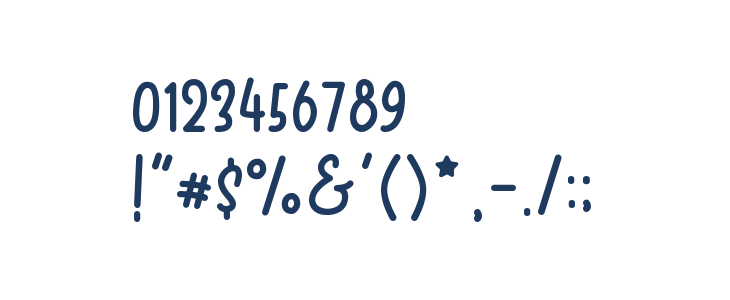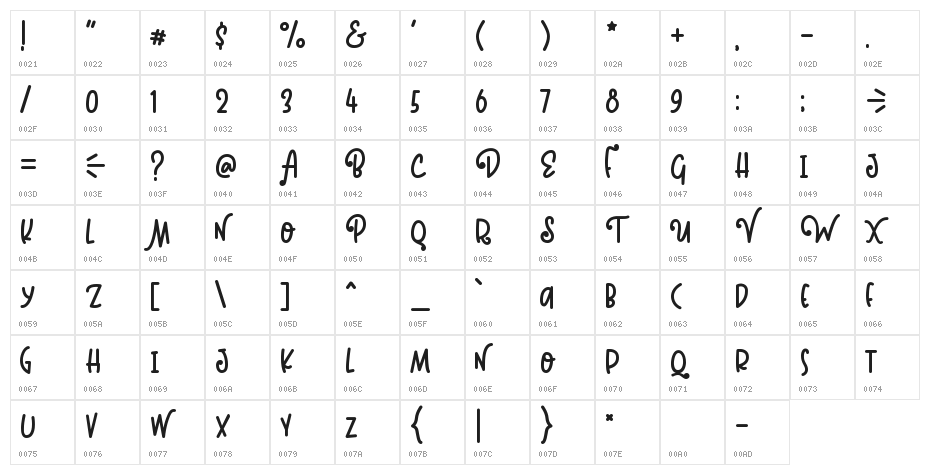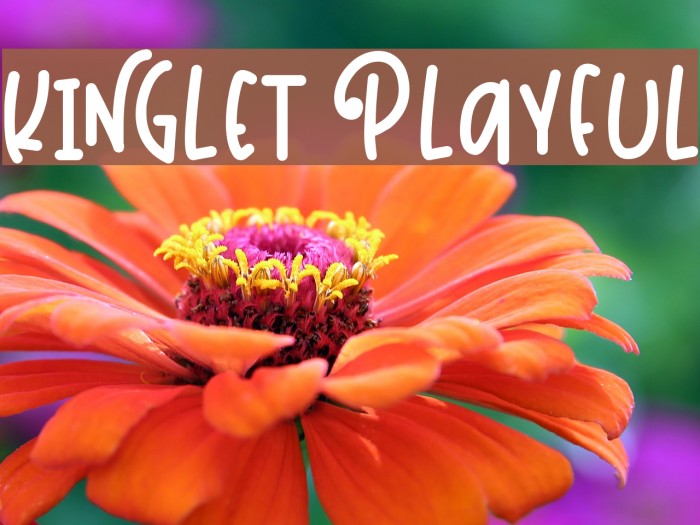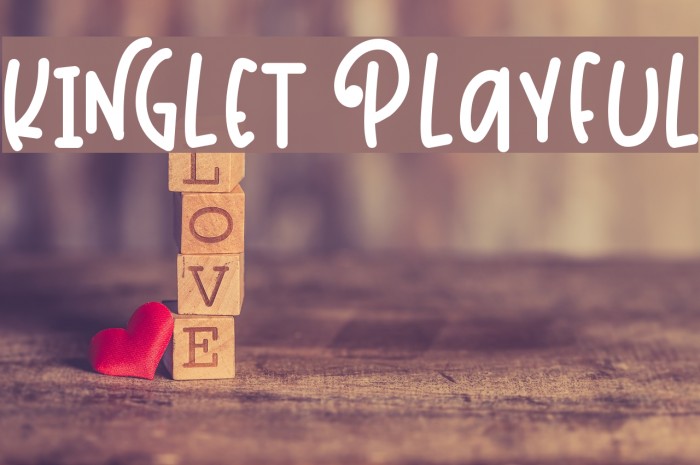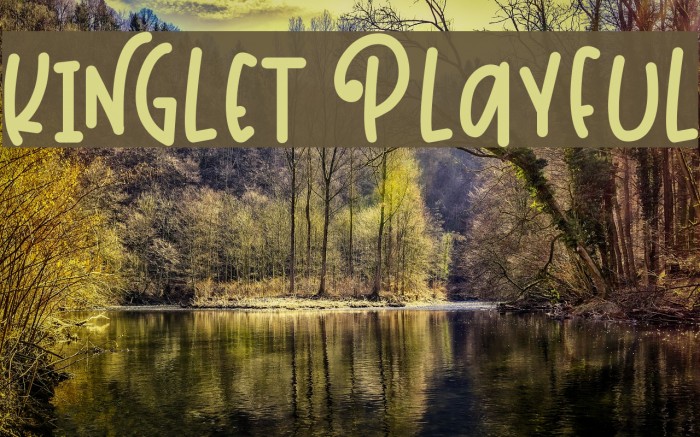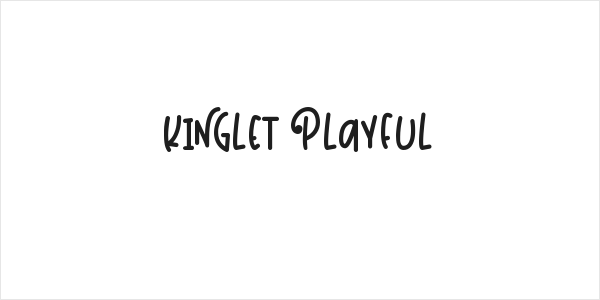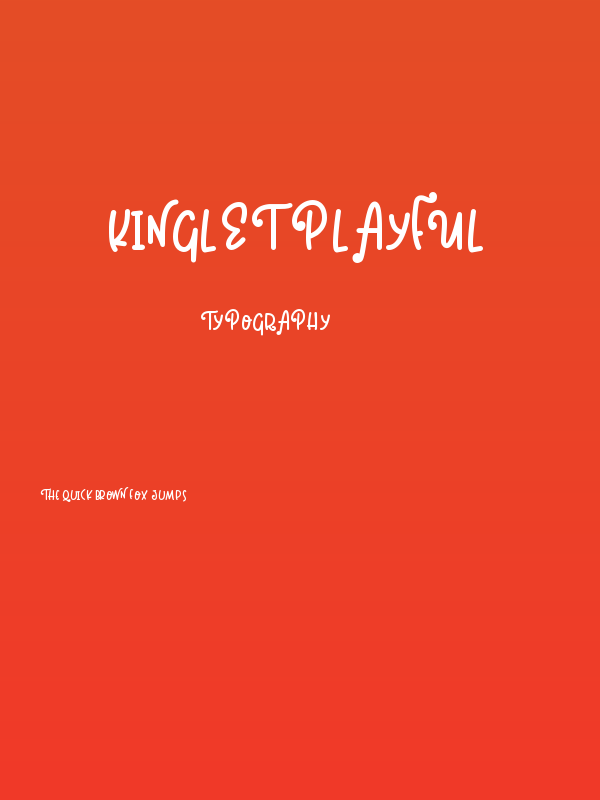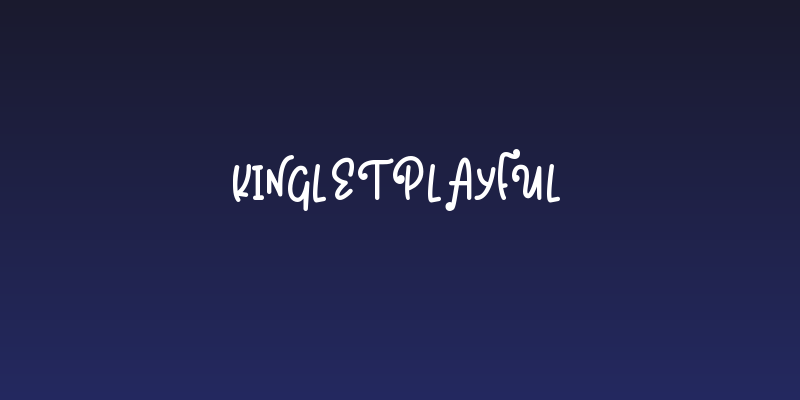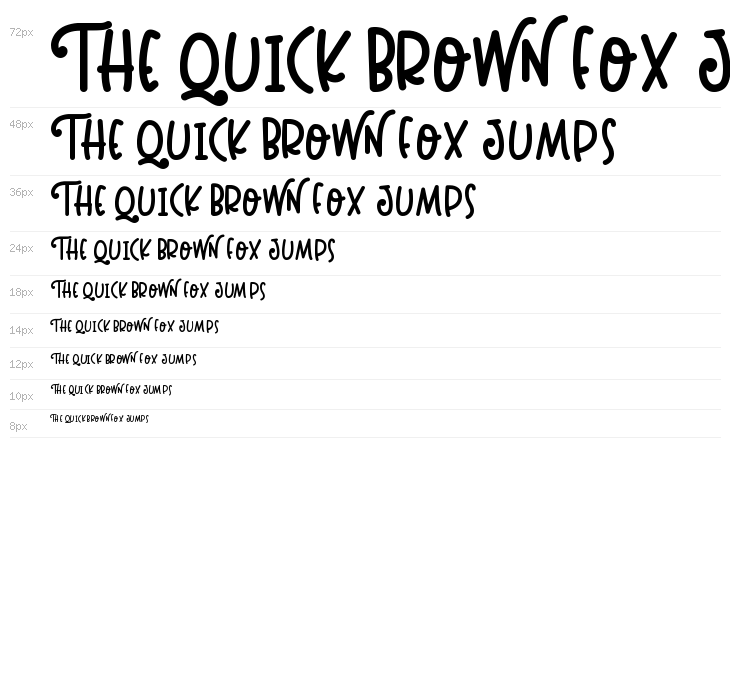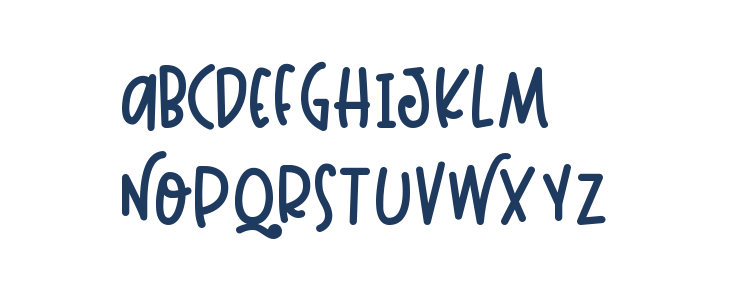
Kinglet Playful Font
Kinglet Playful Description
This font exudes a playful and whimsical charm, characterized by its bold, rounded letterforms and distinctive curls. The uppercase and lowercase letters maintain a consistent style, with a lively and energetic appearance. The numbers and special characters follow suit, adding to the font's cohesive and spirited design. Its bold strokes and rounded edges make it highly legible while retaining a fun and informal vibe. The font's unique personality makes it ideal for projects that require a touch of creativity and joy.
Overall StylePlayful
Proposed ProjectsPerfect for children's books, playful branding, party invitations, and creative posters.